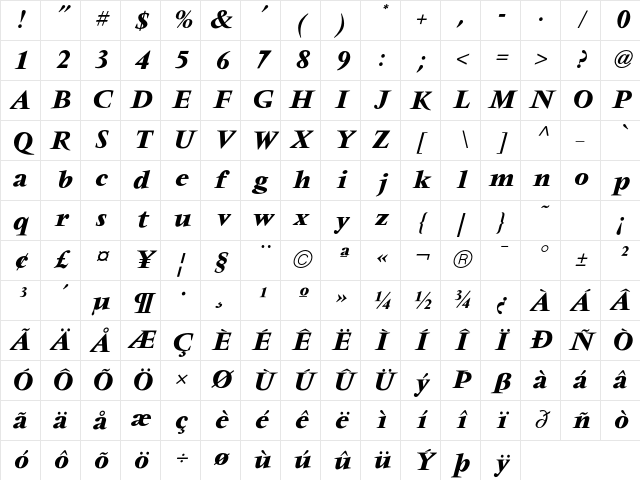
VendomeICG BoldItalic
VendomeICG Family
VendomeICG BoldItalic
VendomeICG BoldItalic Font Preview
VendomeICG BoldItalic Uppercase Preview
VendomeICG BoldItalic Lowercase Preview
VendomeICG BoldItalic Numeric Preview
VendomeICG BoldItalic Character Map
Complete VendomeICG BoldItalic glyph index. Displaying only characters natively supported by VendomeICG BoldItalic font.
VendomeICG BoldItalic Character Map
Design Context for VendomeICG
VendomeICG is a composed and adaptable typeface that performs quietly and consistently across a wide range of design contexts. The slanted form adds forward momentum and visual energy. Its bold stroke weight gives it real presence on the page.
Pro Tip: Use VendomeICG for emphasis, pull quotes, and subheadings where its slanted energy can add rhythm to the layout.